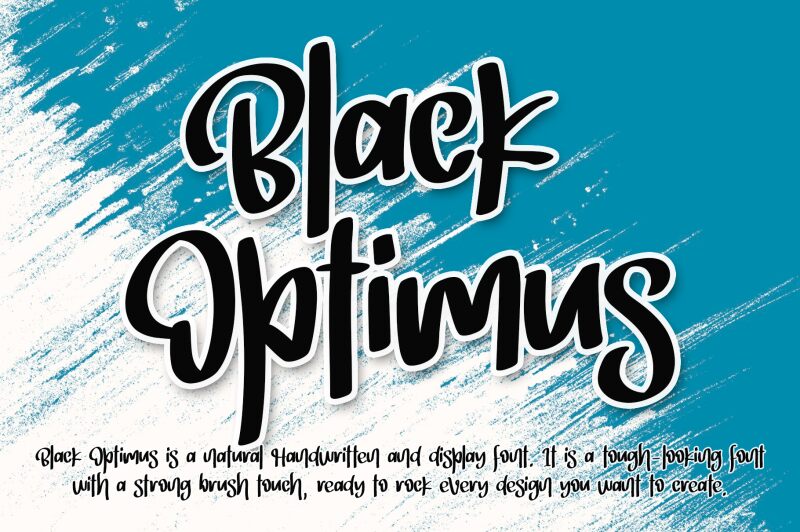
Black Optimus font by Letterafa Studio presents itself as a playful and cute display typeface with a modern touch. Inspired by handwriting styles, the free calligraphy font has unique decorations in its design which give it an artistic whimsical feel. At the same time, the letters are expressive and decorative, and their strokes come together for an amazing final look.
Use Black Optimus for product packaging or label designs such as those on beverage bottles, chocolate bars, tea bags etc. Titles whether on digital platforms or print media are other possible uses along with magazine covers, branding projects or simply social media posts.